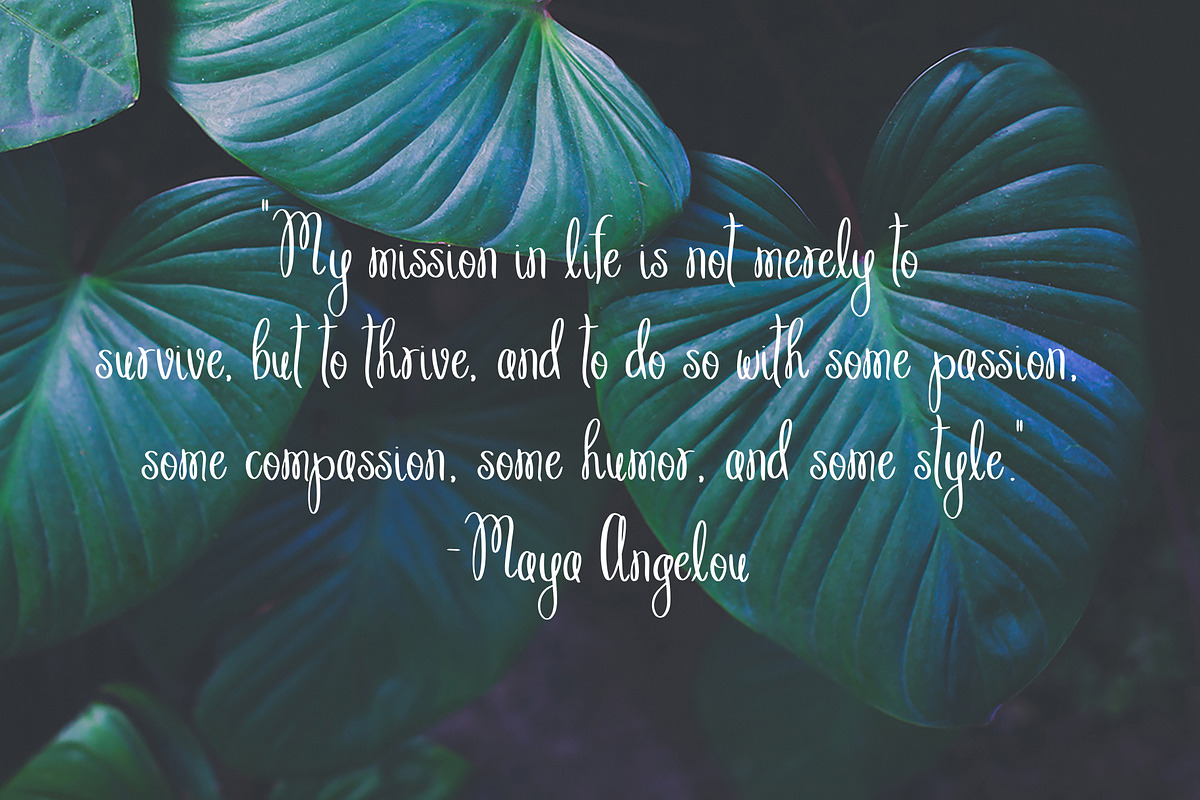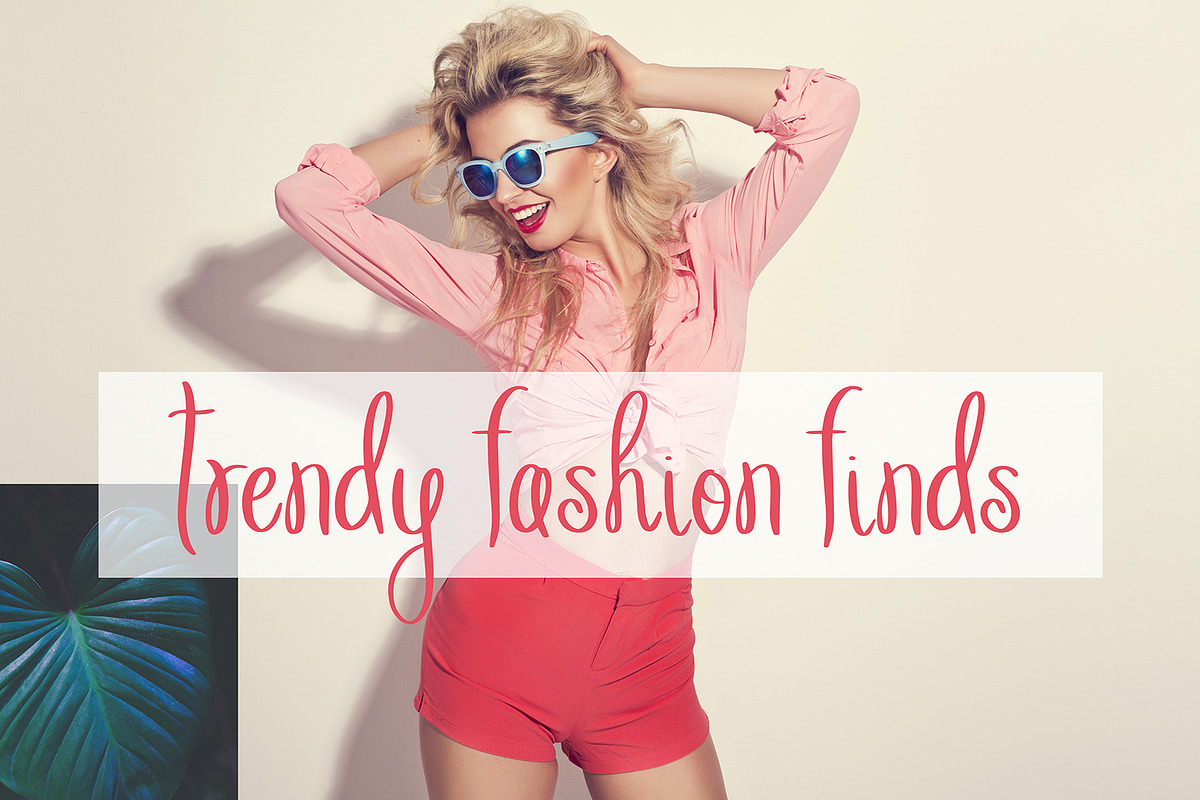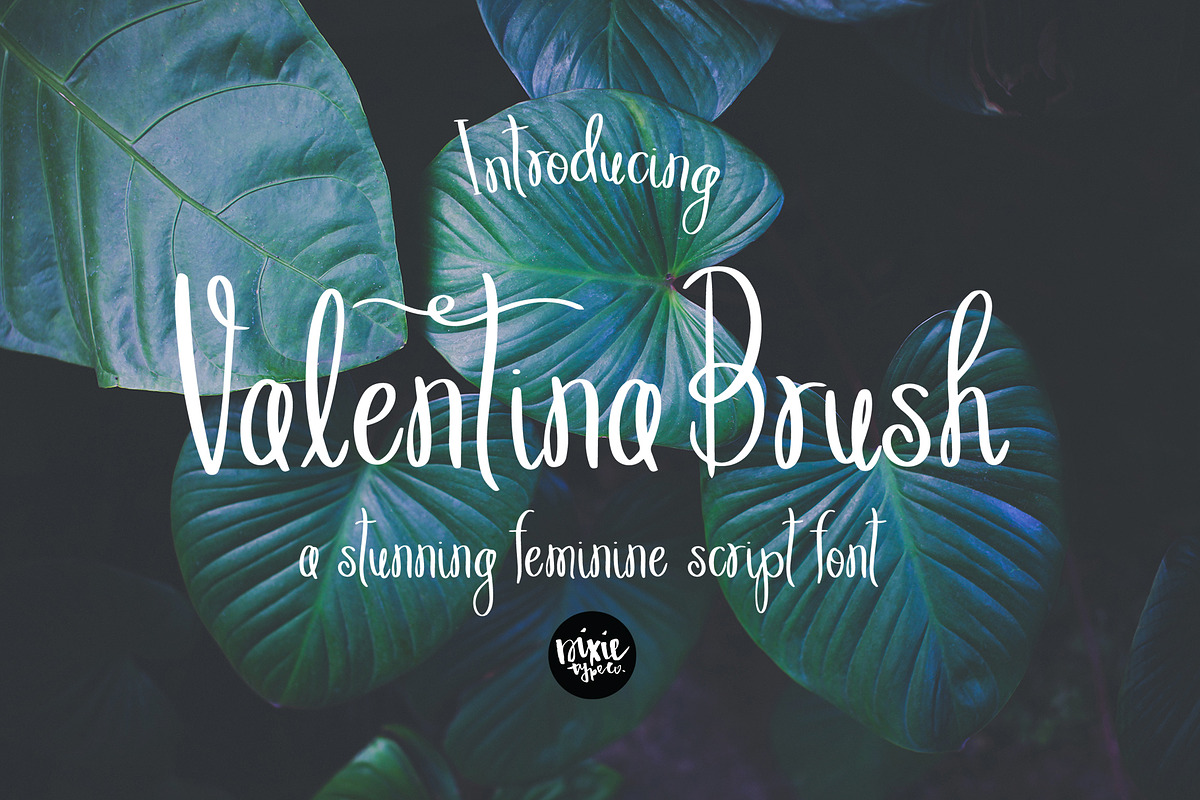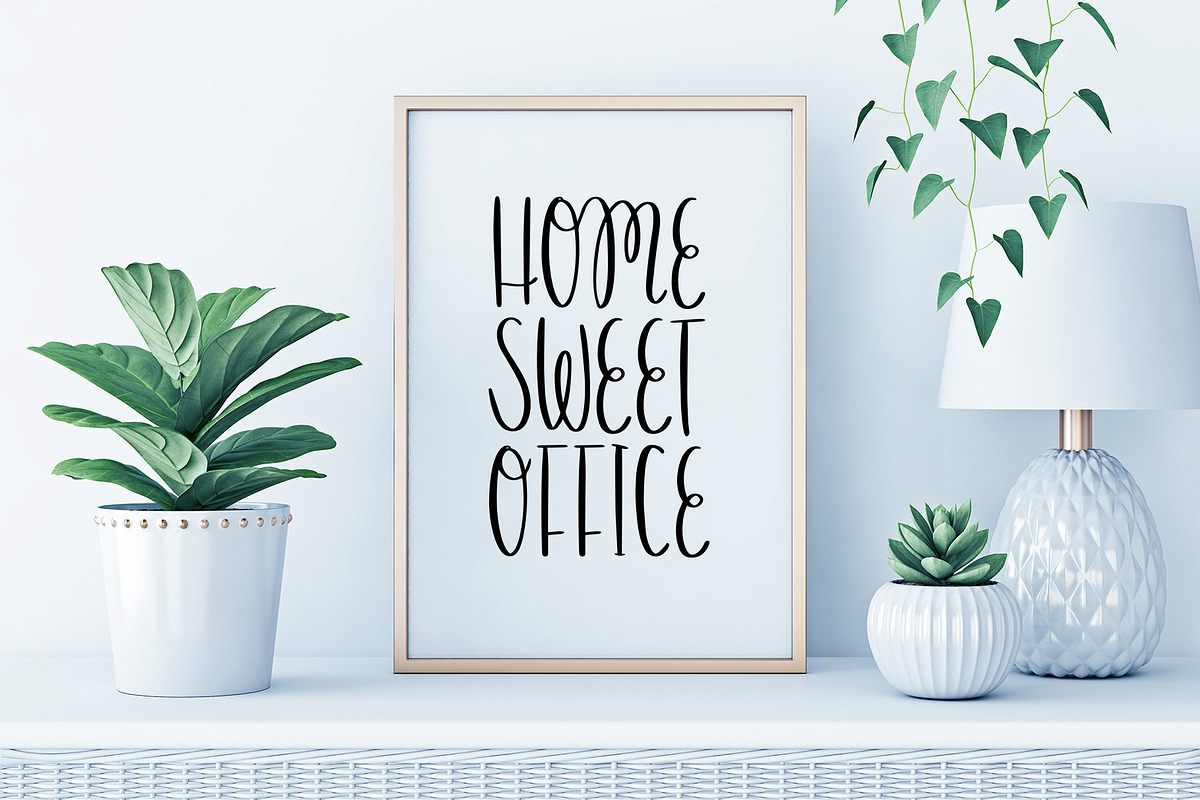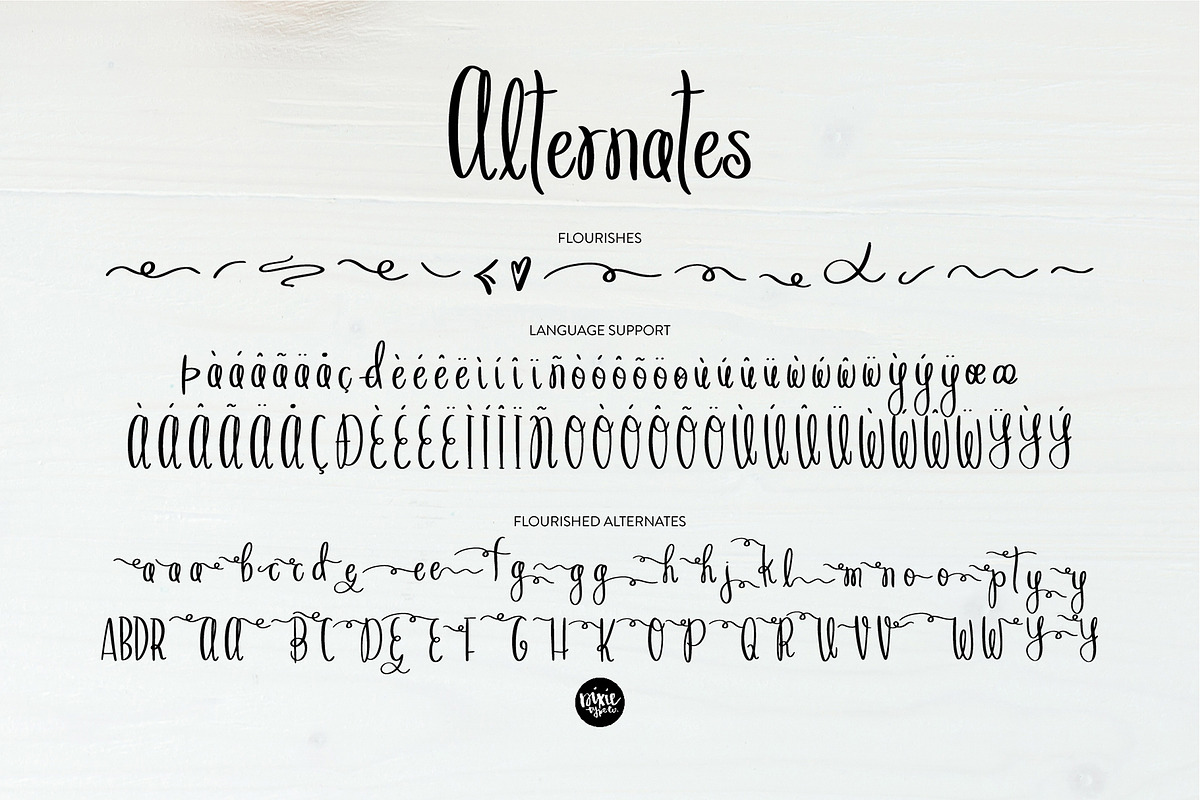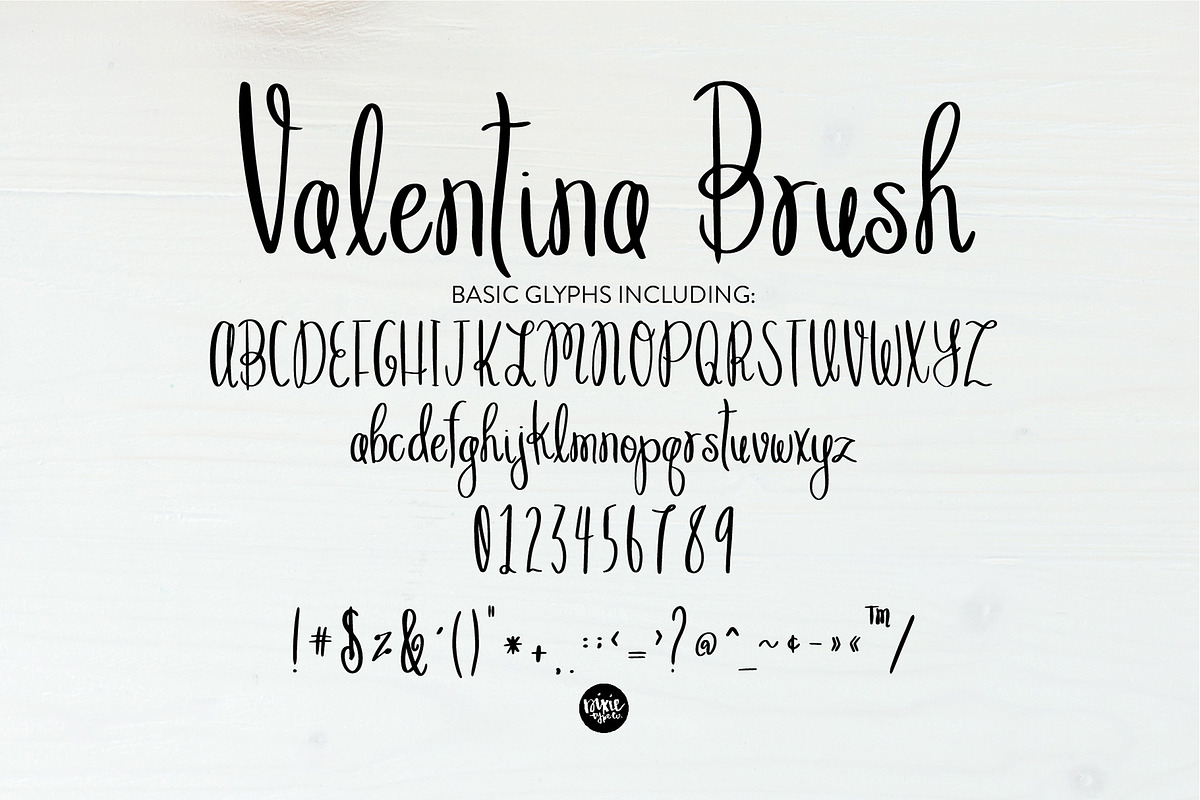
VALENTINA BRUSH Thin Script Font
VALENTINA BRUSH by Dixie Type Co.
Valentina Brush is a thin and beautiful hand lettered script font. This font includes TON of extras!
Upper and lowercase glyphs
53 alternate and flourished letters (OpenType)
31 basic punctuation characters
14 custom flourishes that you can add to your letters (OpenType)
LANGUAGE SUPPORT of these characters: ÀÁÂÃÄÅÇÐÈÉÊËÌÍÎÏÑØÒÓÔÕÖÙÜÚÛ????ÝŸ?ŸÆŒßÞþ - - 239 glyphs total